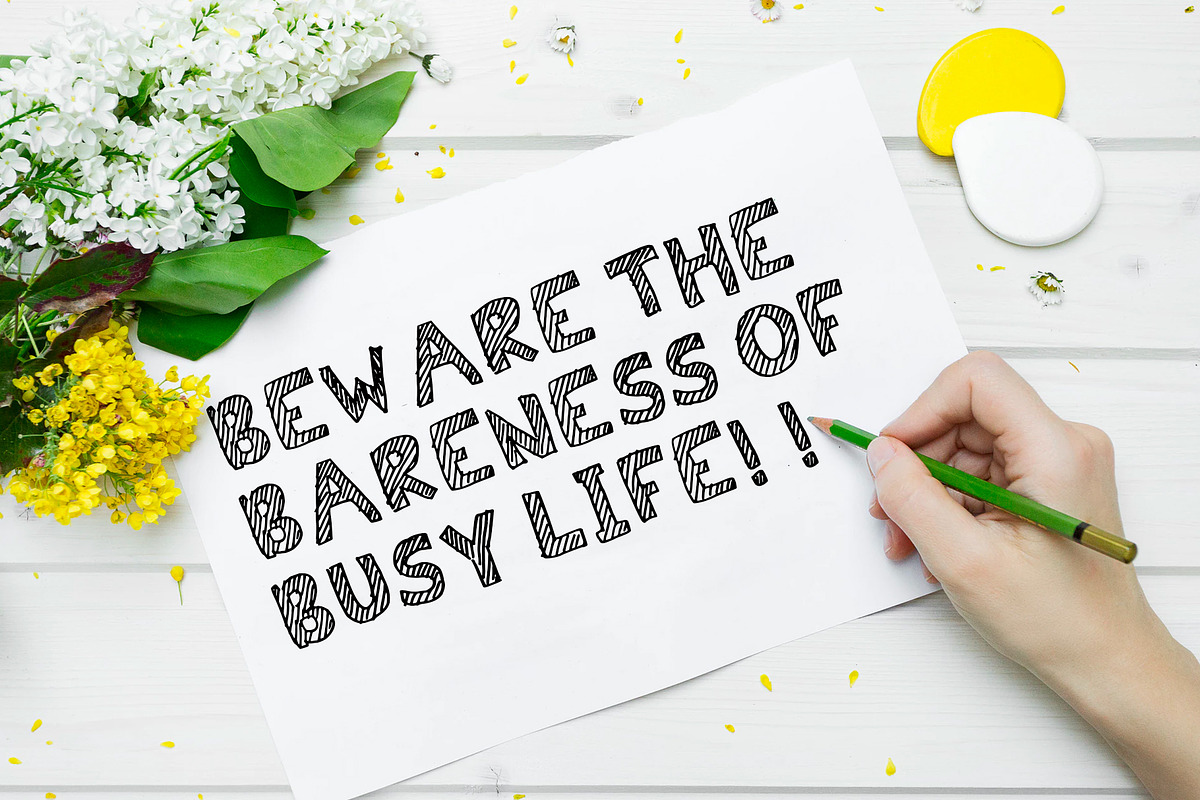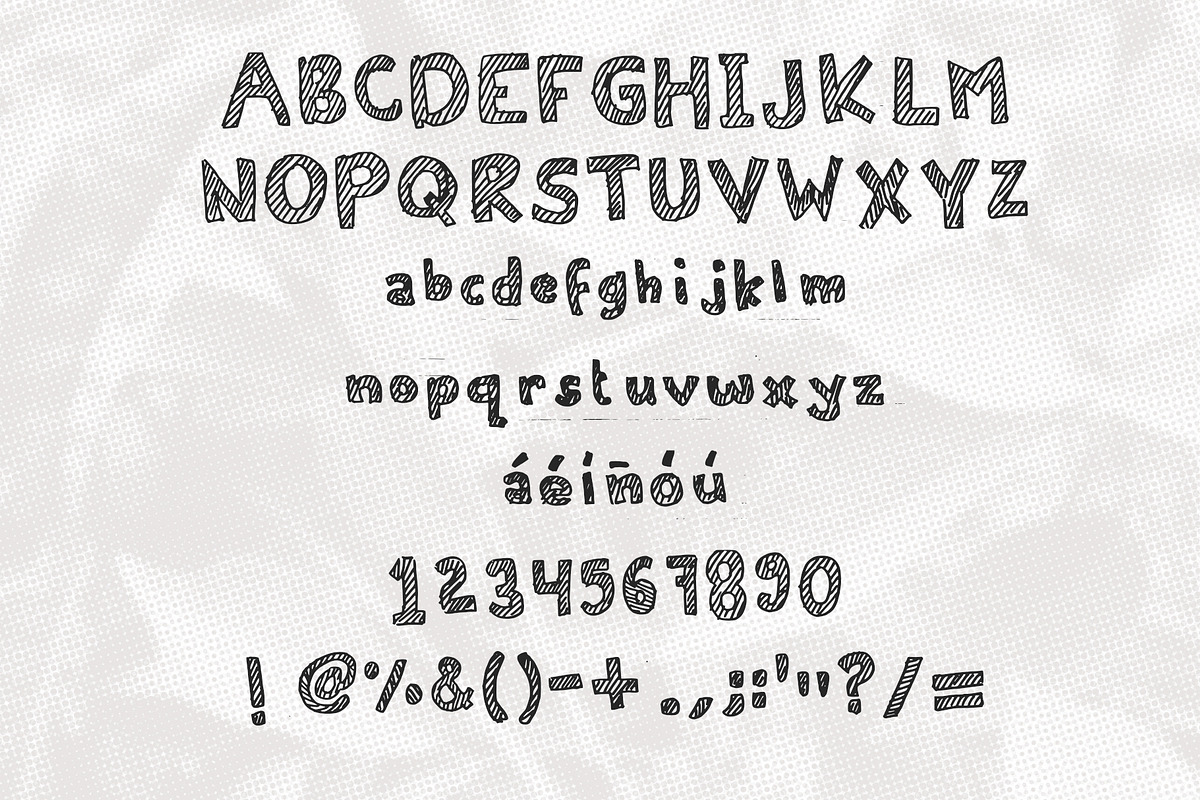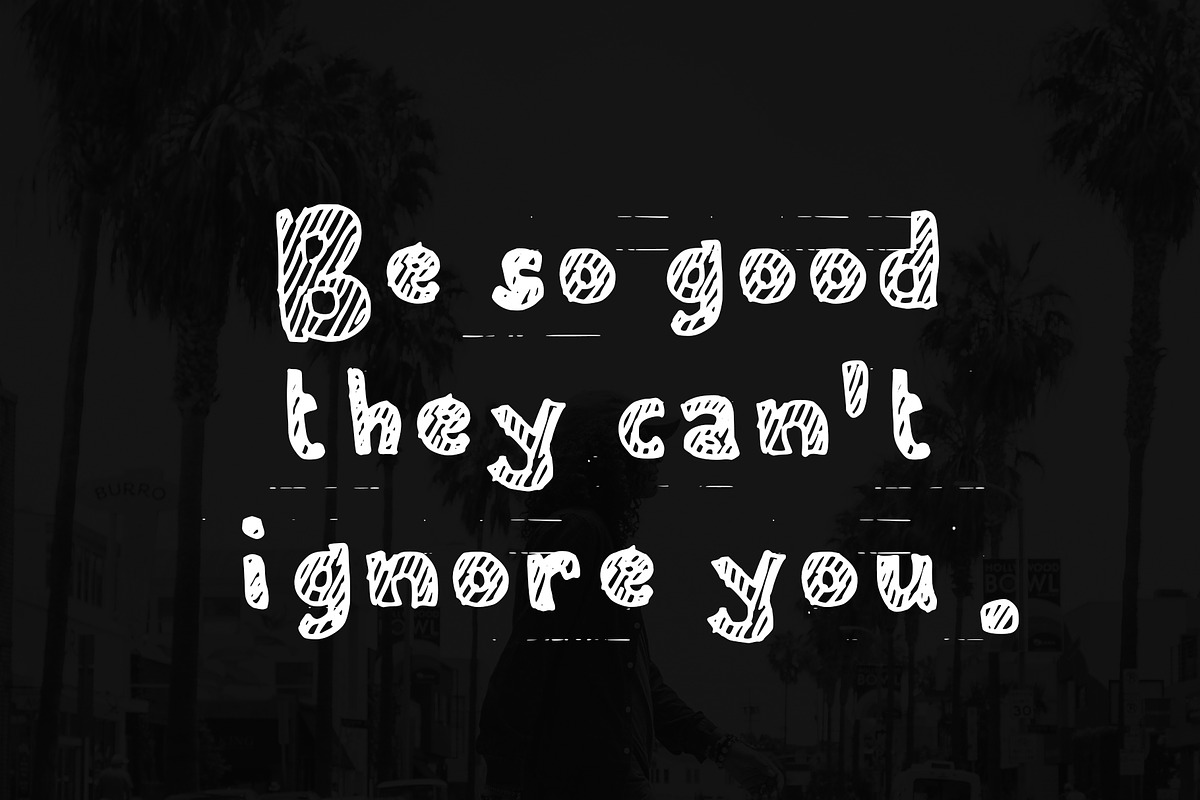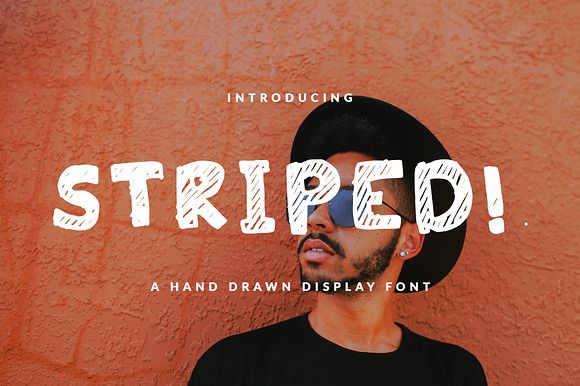
Stripiiera Font For Header
Sans serif hand-drawn display font called Stripiiera was designed for modern, classic, bold, unique and other style also fit for Header website, general use for header text, kids stories, books, poems and other long text
Why Stripiiera Font For Header is worth a look
Stripiiera Font For Header by NadaNora fits naturally into Branding, posters, packaging, typography.